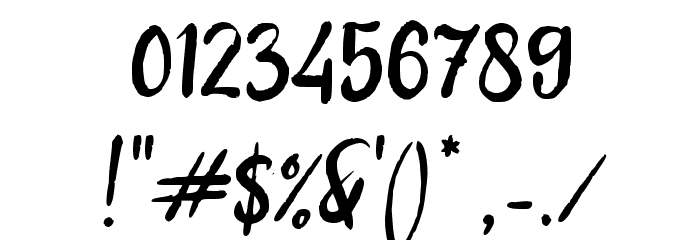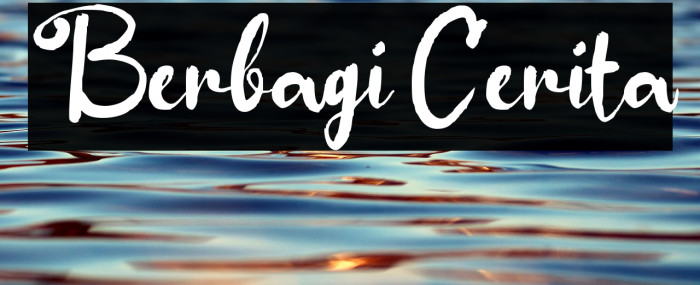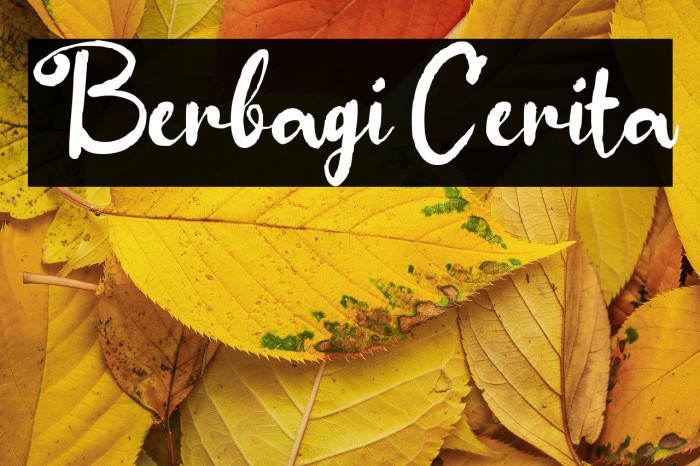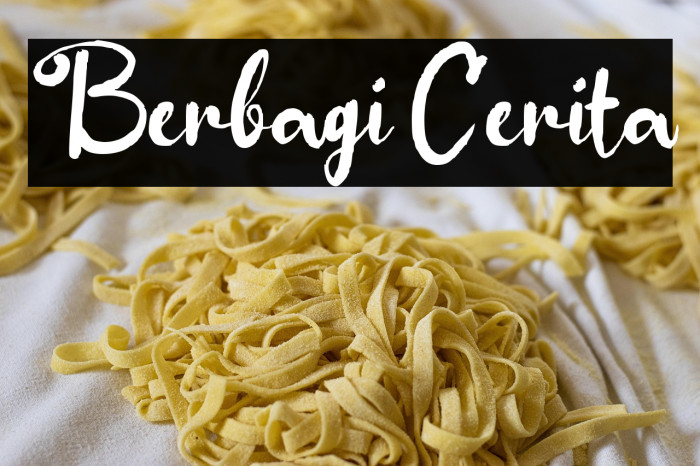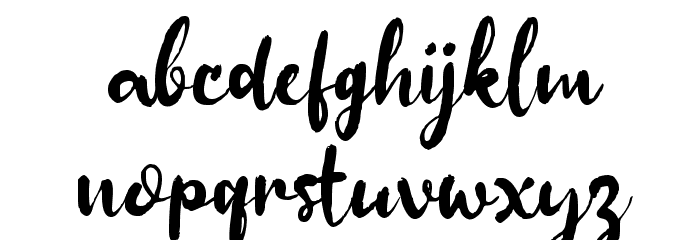
Berbagi Cerita Font
Berbagi Cerita Description
This font features a lively and expressive script style, characterized by its fluid and cursive strokes. The uppercase letters exhibit a playful yet elegant flair, with distinct loops and swashes that add a touch of sophistication. The lowercase letters maintain a consistent flow, enhancing readability while preserving the artistic essence. Numbers and special characters are crafted with the same attention to detail, ensuring a cohesive look across all elements. The overall appearance is both dynamic and graceful, making it suitable for a variety of creative applications.
| Use Case | Logos, Invitations, Decorative text |
| Proposed Projects | Ideal for wedding invitations, greeting cards, branding projects, and decorative posters. |